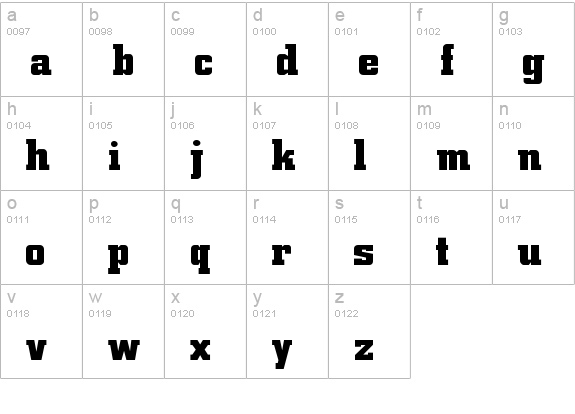
CivicBold Font Details
Introducing CivicBold font, a modern and versatile typeface that exudes confidence and sophistication. With its bold and clean lines, CivicBold is perfect for creating eye-catching designs that demand attention. Whether you're working on branding, advertising, or editorial projects, this font will help you make a bold statement. The best part? CivicBold is available for free download at FontsMarket.com, making it easily accessible to designers and creatives looking to elevate their work. Say goodbye to limitations and hello to endless possibilities with CivicBold font. Let your creativity shine with this sleek and impactful typeface that is sure to leave a lasting impression.